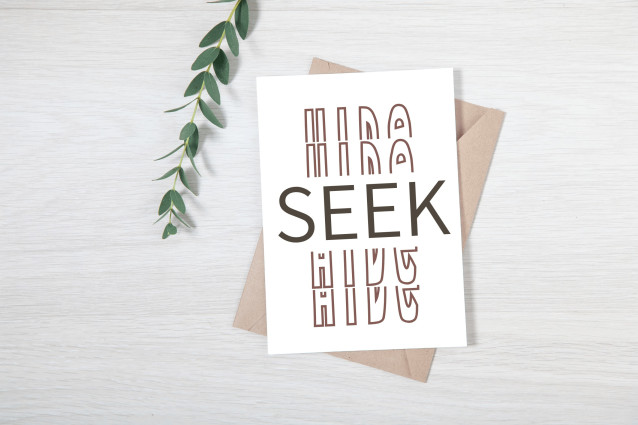
Condense Stacked Monogram Font
Condense Stacked Monogram is a refined and vertically aligned monogram font with a slim, structured design. Ideal for initials, logos, packaging, personal branding, and labels, it offers a modern take on stacked lettering with elegant simplicity. The tall, narrow structure makes it perfect for fitting into tight layouts without sacrificing style or legibility.